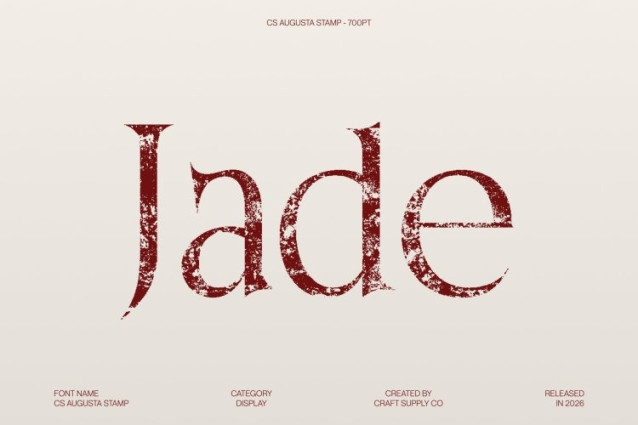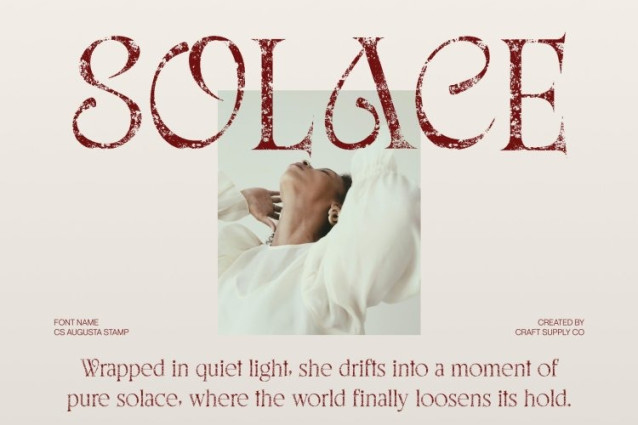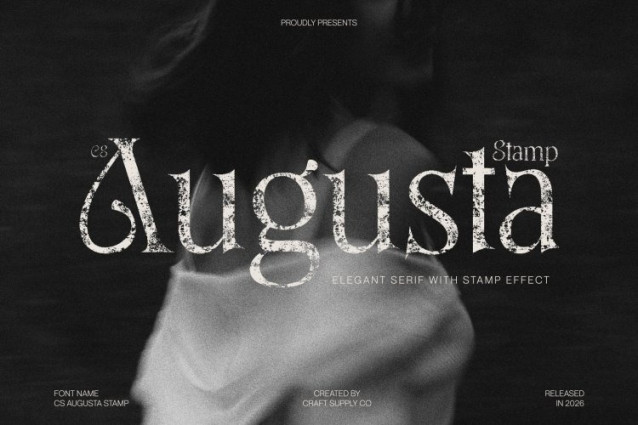
CS Augusta Stamp Font
CS Augusta Stamp Font This is an elegant serif font defined by smooth, flowing curves and beautifully refined proportions. Its graceful letterforms create a luxurious and feminine impression, while the subtle stamp texture adds organic depth and artistic character. This balance between softness and texture gives the font a distinctive presence polished yet expressive.
Sophisticated Elegance for Editorial Excellence
Designed to shine in advanced book layouts, editorial design, and magazine titles, this font offers both visual beauty and excellent readability. The gentle serifs and balanced structure ensure a comfortable reading experience, while the stamped details introduce a timeless, handcrafted feel that elevates long-form typography.
Perfect for Packaging and Feminine Branding
This font brings refined charm to packaging, logos, and branding projects. Its soft elegance and vintage-inspired stamp effect make it ideal for beauty products, fashion labels, lifestyle brands, and feminine visual identities that seek luxury with a warm, artistic touch.
Timeless Beauty with Modern Sensibility
Every curve and serif is thoughtfully crafted to express confidence, beauty, and femininity. Blending classic serif sophistication with contemporary refinement and subtle vintage texture, this font is a versatile typeface for both print and digital designs elegant, expressive, and enduring.